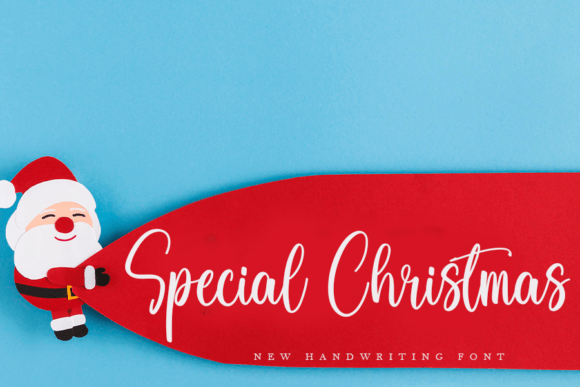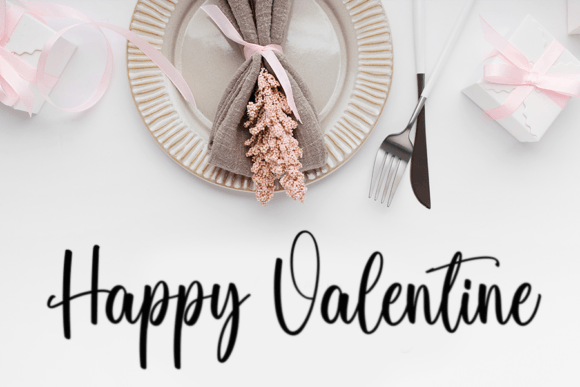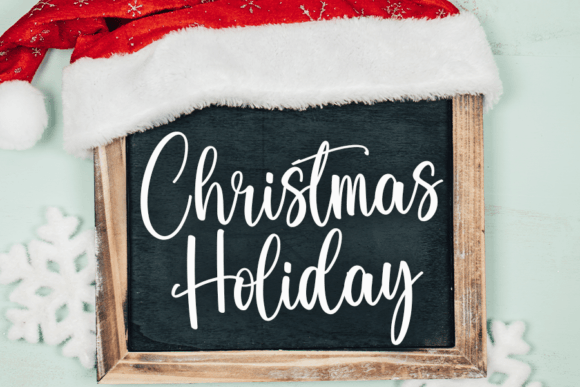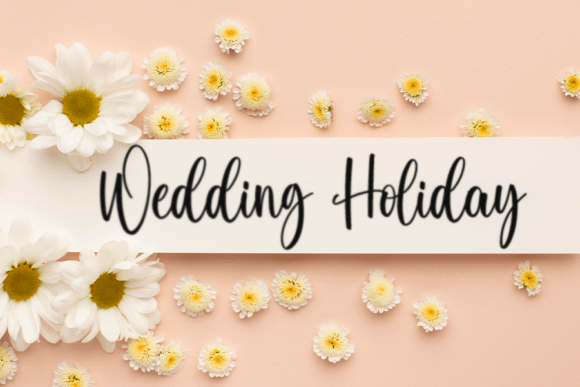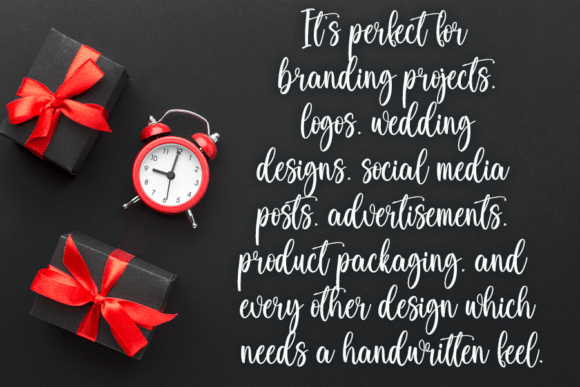
Santa Font
Keep It Simple and Stylish with Santa Handwritten Font
The Santa Handwritten Font is a clean and casual script typeface that brings a relaxed, friendly feel to your design projects. Whether you’re crafting, designing digital content, or making greeting cards, Santa adds a personal and approachable touch to your work. Its simplicity and versatility make it a reliable choice for everyday design needs.
Perfect for Crafts, Cards, and Presentations
Santa is especially ideal for DIY craft projects, printable materials, greeting cards, and presentation slides. Its neat and easygoing look makes it suitable for both professional and playful settings. Whether you’re preparing an event invitation or customizing a business deck, this font helps you communicate clearly and stylishly.
In addition, the handwritten nature of Santa gives your work a personal edge—making your message feel warm and genuine.
A Casual Script with a Handwritten Feel
What sets the Santa Handwritten Font apart is its natural flow and clean stroke design. The characters are crafted to look handwritten, yet polished enough to maintain professionalism. As a result, the font strikes a perfect balance between being informal and tidy.
Moreover, the spacing and rhythm of the letters provide excellent readability. You can confidently use this font in longer text blocks or layered over colorful backgrounds without losing clarity.
Suitable for Both Digital and Print Projects
Santa performs equally well on screen and in print. Whether you’re creating social media graphics, website headers, printables, or custom merchandise, this font adjusts beautifully to various formats and resolutions.
Additionally, it pairs nicely with both serif and sans-serif fonts, allowing you to build clean, modern compositions or add a handwritten accent to more structured designs.
Why Choose Santa Handwritten Font?
Here’s why Santa belongs in your font collection:
• Clean and casual handwritten style
• Perfect for crafting, digital projects, and presentations
• Readable across different sizes and backgrounds
• Works in both print and digital designs
• Adds a friendly and personal touch to every layout
Make Every Design Feel Effortless and Authentic
In conclusion, the Santa Handwritten Font is a simple yet expressive script that fits a wide range of creative uses. Its casual charm and professional clarity make it your perfect everyday font—ready to handle everything from heartfelt cards to business-ready visuals.
If you’re looking for a typeface that feels personal, readable, and versatile, Santa is a great choice. Let it become your go-to font for designs that are neat, warm, and easy to love.